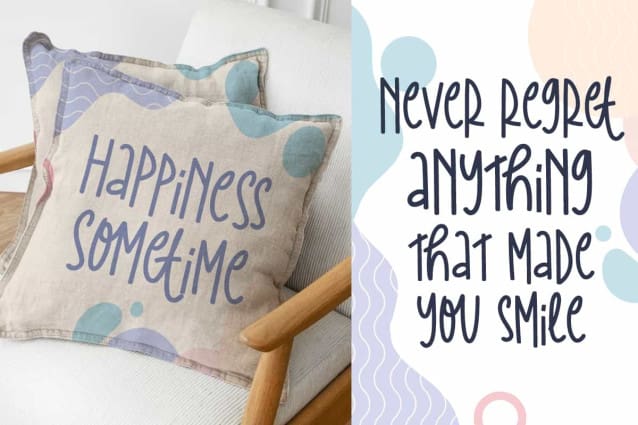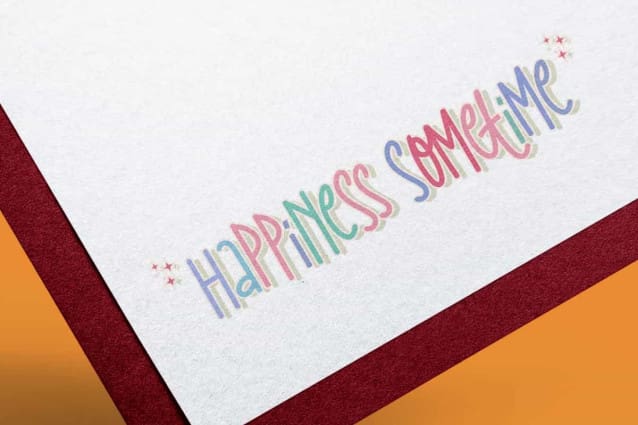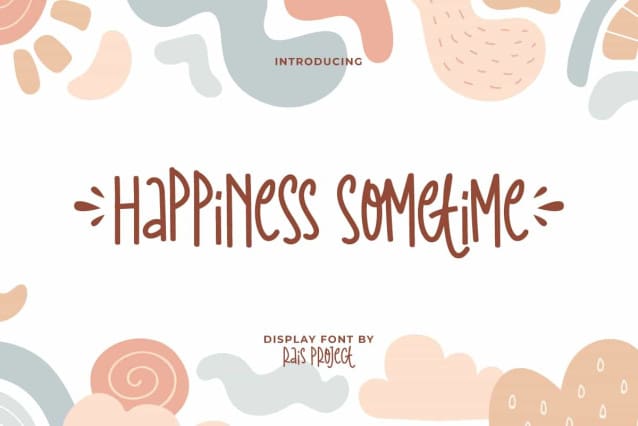
Happiness Sometime Font
Happiness Sometime Font is a lovely display font with handwritten style. This font can give a cute vibes to any design you make and make it look natural! It will be good for any designs, such as stationery, invitation, label, brand image, calendar, cover, custom design, greeting card, poster, product packaging, quotes, web, and more!
Happiness Sometime Font includes a full set of Uppercase and Lowercase Letters, Numerals, Punctuation, Symbol, Ligature, and Swoosh characters. This font will be suitable for various industries, such as kids stuff, fashion, accessories, advertisement, event, fashion, florist, cafe, photography, printing, publishing, etc.